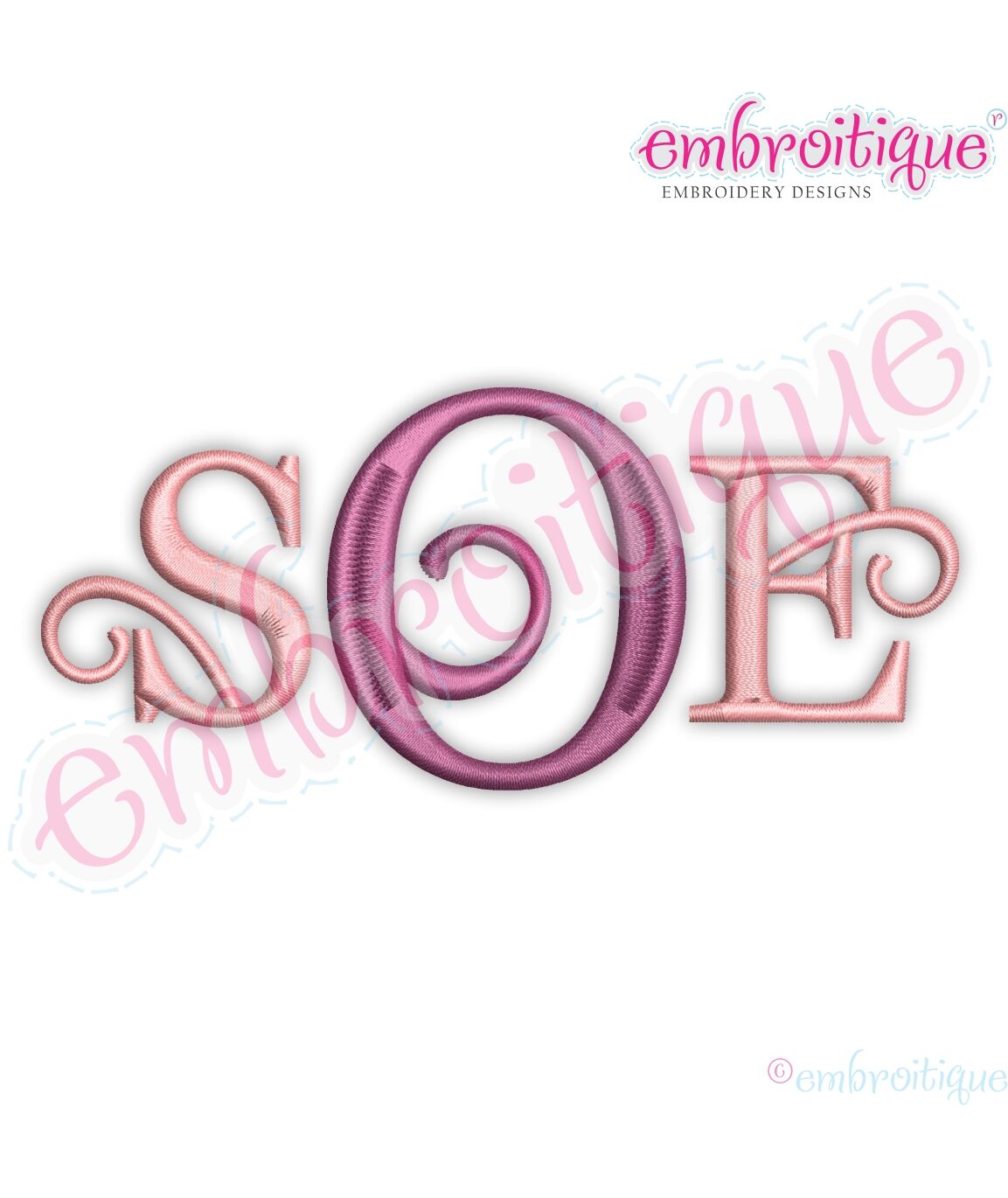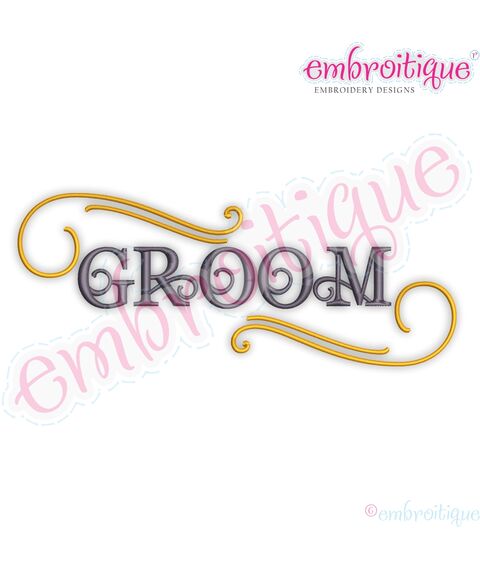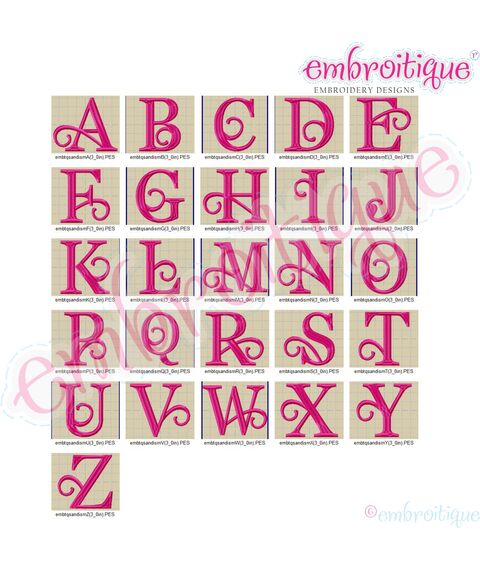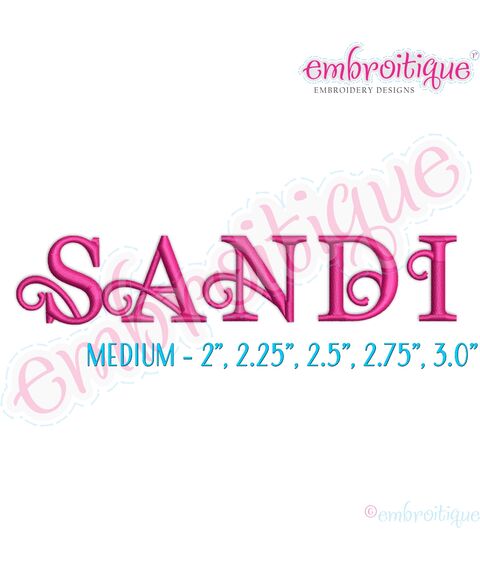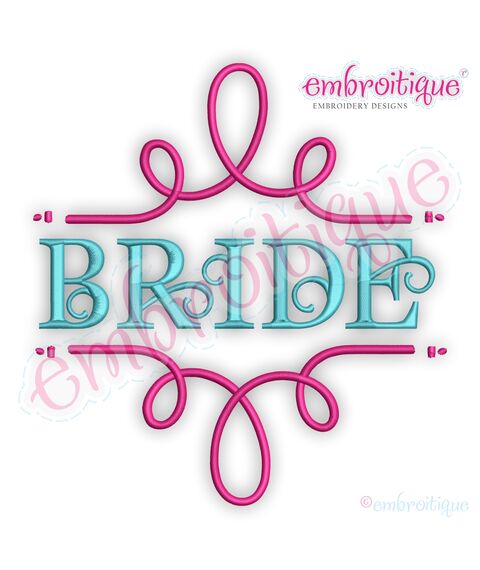
Sandi Monogram Font - Curly Classic Upright- MEDIUM
This is an extremely versatile font that will add class to all of hour projects. Perfect for wedding season! Includes BX files to use with Embrilliance. Comes with A-Z.